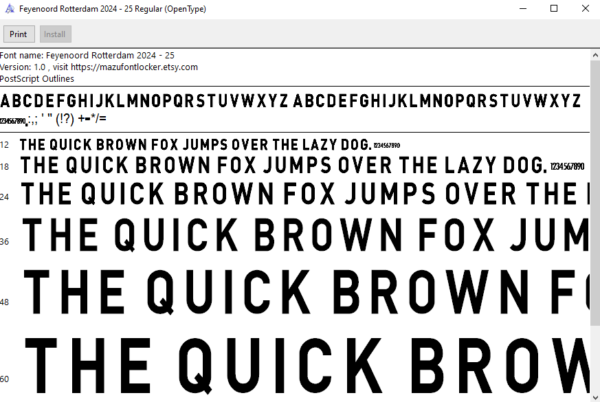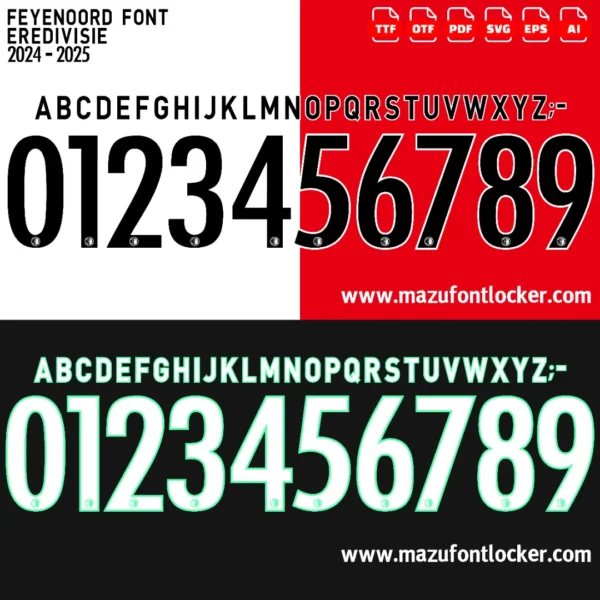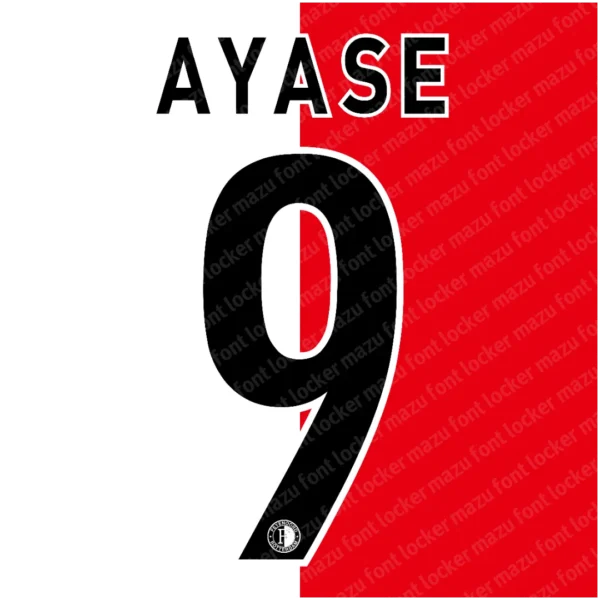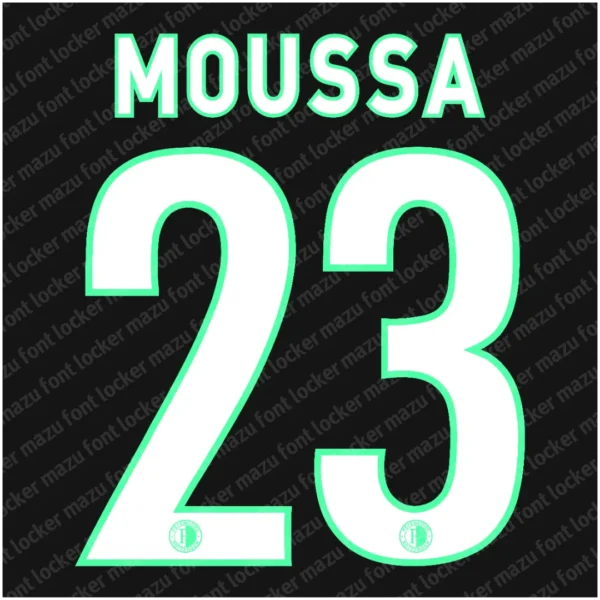
Feyenoord Rotterdam 2024-2025 Font Vector – Stunning De Kuip Champions Masterpiece
This premium font captures the bold, championship-driven, iron-hearted match lettering that embodies the relentless Feyenoord spirit — delivering authentic Rotterdam passion, explosive De Kuip energy, unwavering resilience, tactical brilliance, legendary warrior mentality, and the unstoppable red-and-white roar that struck fear into every opponent across the Netherlands and Europe.
Feyenoord Rotterdam 2024-2025 Font Vector – Stunning De Kuip Champions Typeface
The Feyenoord Rotterdam 2024-2025 Font Vector is a premium typeface that accurately recreates the official match lettering worn by Feyenoord Rotterdam during the exciting 2024-2025 season. This high-quality vector font kit captures the bold, modern, and unmistakable typography that reflects the club’s proud Dutch football heritage and the passionate atmosphere of De Kuip.
Why Choose Feyenoord Rotterdam 2024-2025 Font Vector
This font stands out thanks to its precise vector construction and authentic club styling. Every character has been carefully recreated to match the lettering used on Feyenoord shirts throughout the 2024-2025 season. Whether you’re designing professional kit mockups or creating eye-catching football content, the Feyenoord Rotterdam 2024-2025 Font Vector delivers an authentic match-ready appearance.
The characters featured in the Feyenoord Rotterdam 2024-2025 Font Vector are bold, clean, and highly legible. Sharp geometric edges combined with balanced proportions create a professional appearance that closely mirrors the official match lettering seen throughout the season.
The numerals feature confident curves, sharp detailing, and excellent spacing for maximum readability. Built entirely as scalable vectors, every number remains crisp across jersey printing, digital graphics, large-format posters, and promotional materials.
• Complete uppercase A–Z alphabet and numbers 0–9 in authentic Feyenoord Rotterdam 2024-2025 style
• Includes the authentic club crest glyph placement used beneath player numbers
Feyenoord Rotterdam 2024-2025 Season
The Feyenoord Rotterdam 2024-2025 Font Vector is an independently designed typeface package inspired by the official shirt lettering used during the 2024-2025 season. It has been carefully recreated for football enthusiasts, graphic designers, collectors, and creators producing custom jersey concepts, nostalgic football artwork, and fan-made designs.